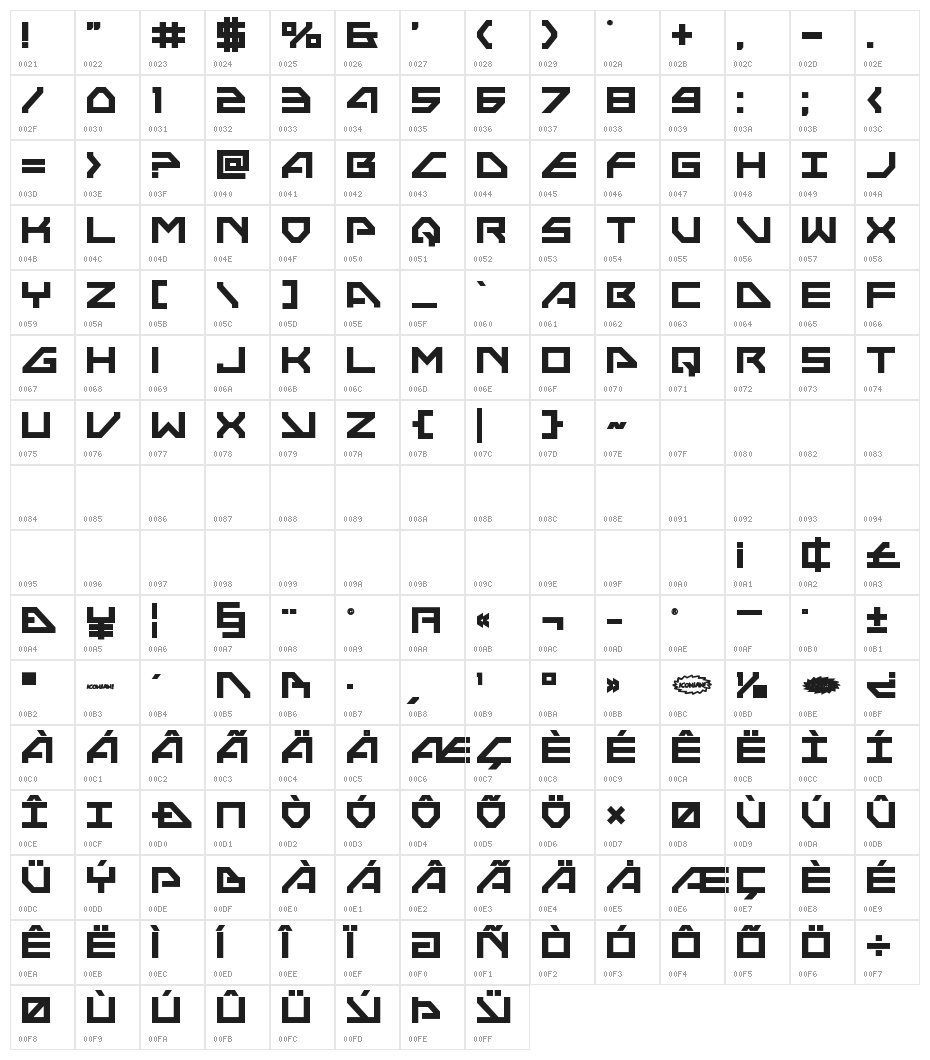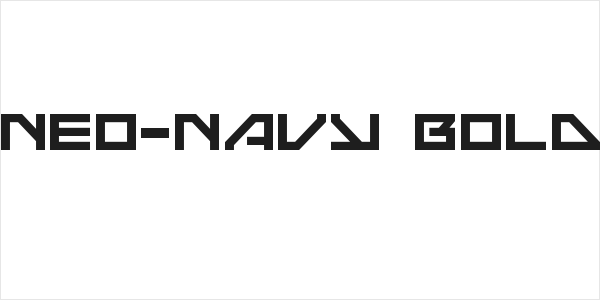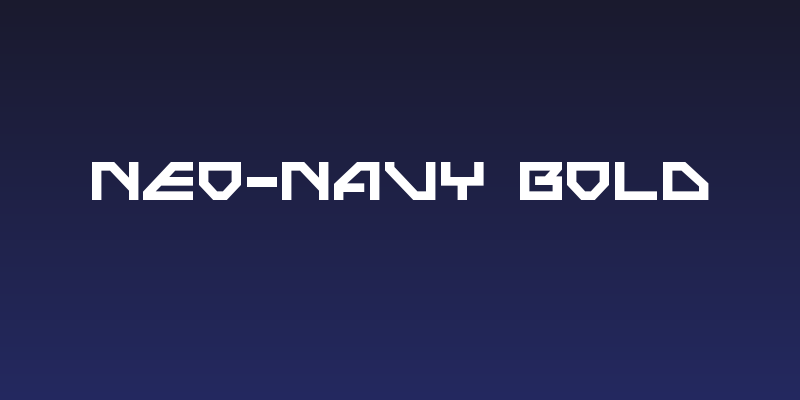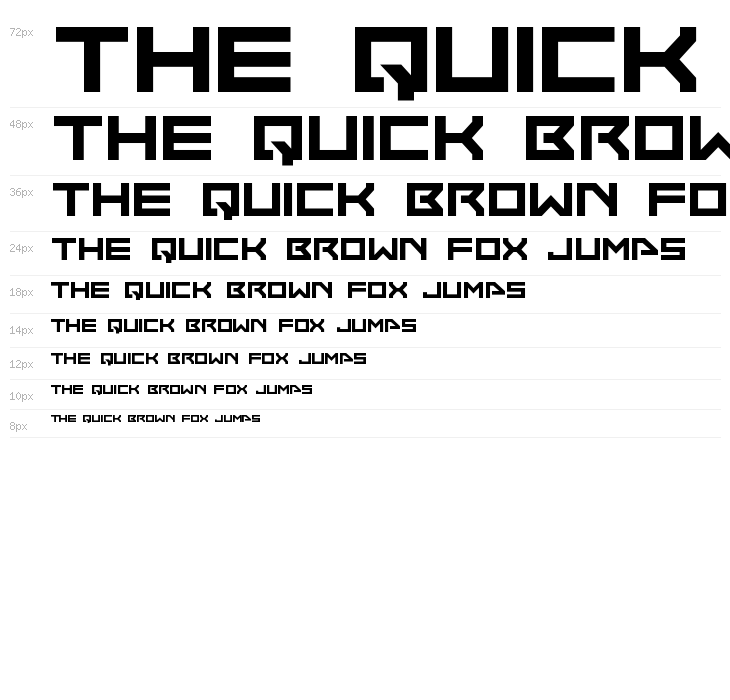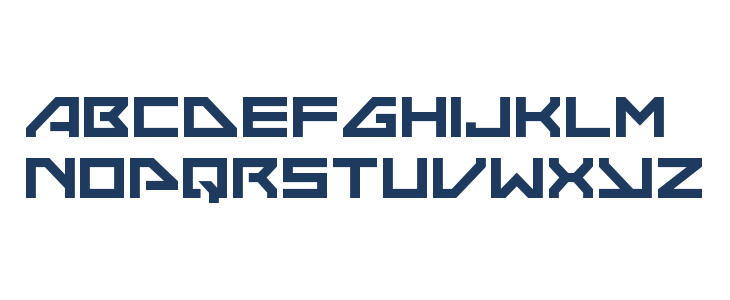
Neo-Navy Bold Font
Neo-Navy Bold Description
This font features a bold, geometric design with sharp angles and a futuristic aesthetic. The characters are constructed with straight lines and angular cuts, giving it a distinctive, modern appearance. The uppercase and lowercase letters maintain a consistent style, with a uniform thickness that contributes to its boldness. The numerals and special characters follow the same geometric pattern, ensuring a cohesive look across all elements. The font's unique style makes it stand out, suitable for projects that require a strong visual impact.
| Proposed Projects | Ideal for technology branding, sci-fi themed projects, video game titles, and modern poster designs. |